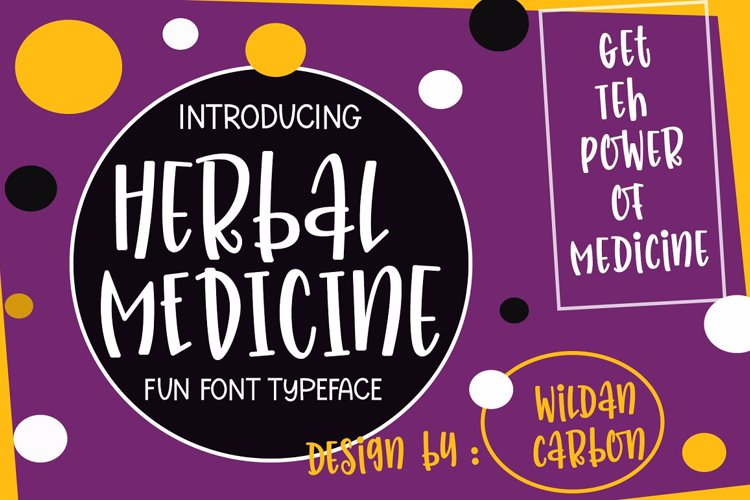
Herbal Medicine Font
About Herbal Medicine Font
Introducing, Herbal Medicine Font!!
Herbal Medicine is a fun and quirky handwritten font with a unique style, playful look & feel! embodies fun. Use this gorgeous and unique font to bring any DIY. you also can enjoy many unic alternate style each character.